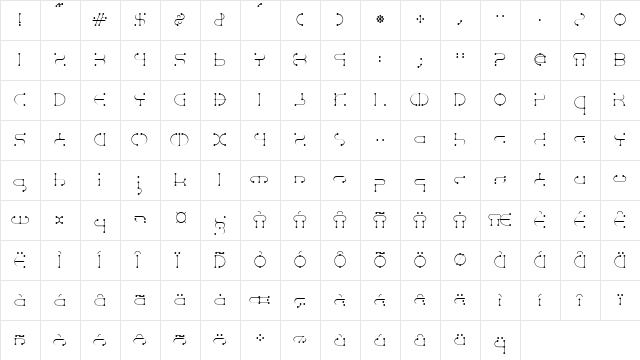
TG Piercin Regula
| Foundry | Linotype Library GmbH |
| Designer | Michael Parson |
Design Context for TG Piercin Typeface
TG Piercin is a composed and adaptable typeface that performs quietly and consistently across a wide range of design contexts.